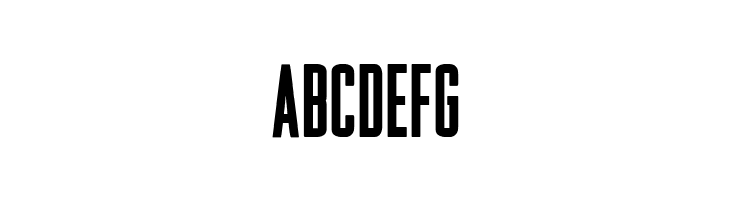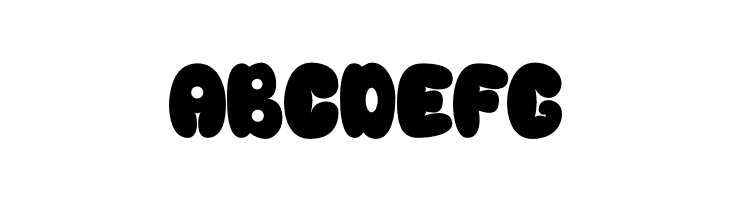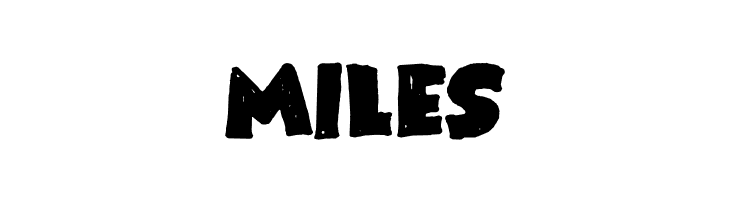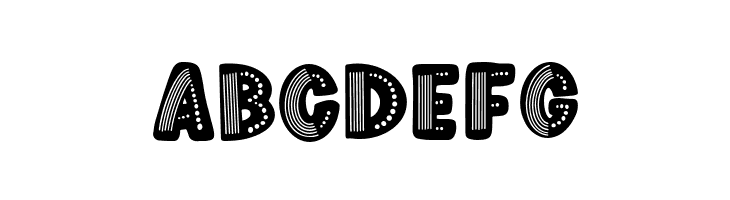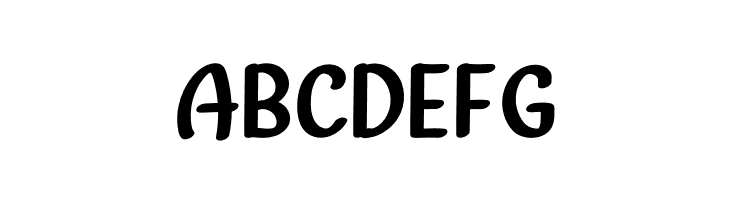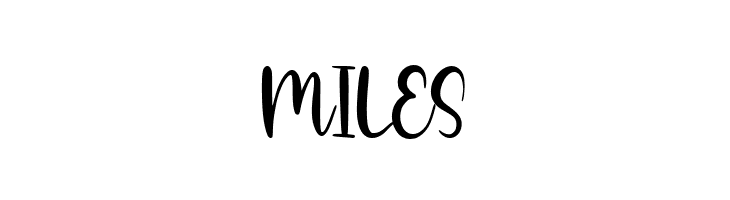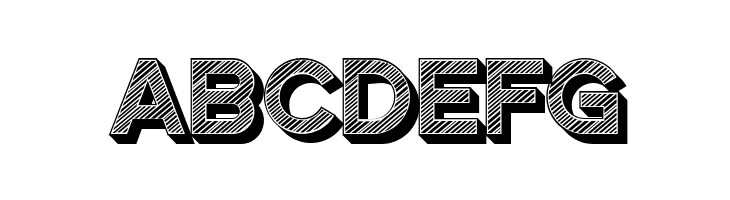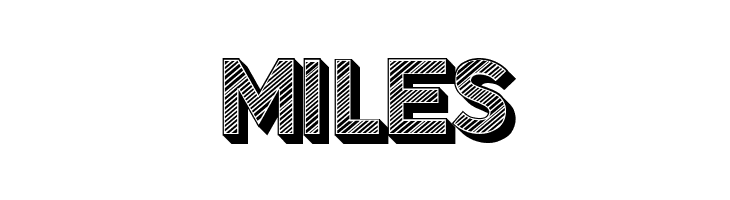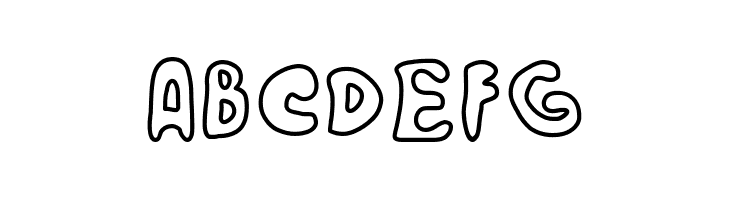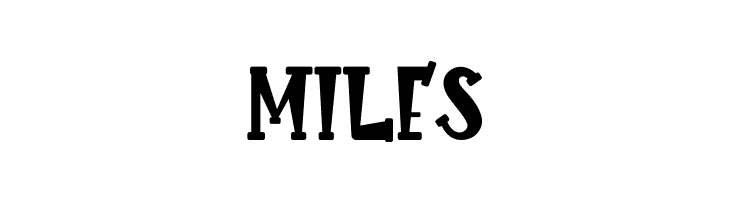
A modern, playful font with continuous, flowing lines and rounded edges.
A bold, geometric font with an industrial, vintage railway aesthetic.
A bold, handwritten-style font with thick strokes and smooth curves.
A bold, decorative font with rounded terminals and a vintage railway-inspired style.
A bold, distressed font with a rugged, industrial style.
A playful, bold handwritten font with smooth curves and a modern, informal style.
A dynamic, modern font with elongated, slanted characters and consistent stroke width.
A bold, brush-style font with dynamic and expressive strokes.
A playful and whimsical script font with smooth, flowing curves.
A playful and elegant script font with flowing, cursive design.
A playful, bold font with rounded, bubble-like characters and a whimsical style.
A dynamic, elegant script-style font with bold, slanted uppercase letters.
A playful, decorative font with bold, textured characters featuring lines and dots.
A bold, tall, and narrow sans-serif font with a modern and impactful style.
A decorative font with rainbow-like arches formed by parallel lines.
A playful, bold outline font with a cartoonish, hand-drawn style.
A delicate and flowing script font with elegant, cursive letterforms.
A graceful, cursive script font with elegant, flowing strokes.
Playful handwritten script font.
A playful, handwritten script font with flowing, interconnected strokes.
A playful and bold script font with a whimsical, handwritten style.
A playful, bold, and rounded font with a hand-drawn aesthetic.
A classic serif font with elegant curves and a refined, timeless appearance.
A classic serif font with elegant, elongated serifs and balanced proportions.
A classic serif font with elegant curves and strong presence.
A bold, decorative font with a 3D effect and diagonal hatching.